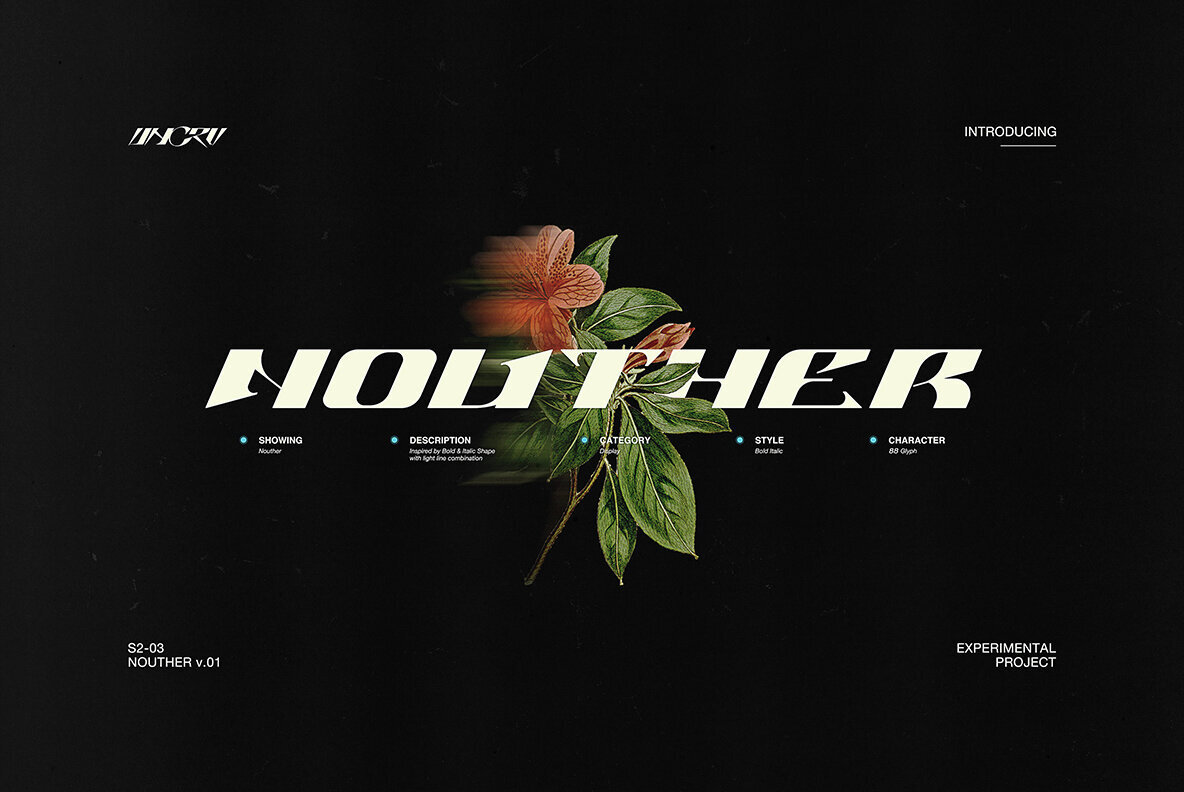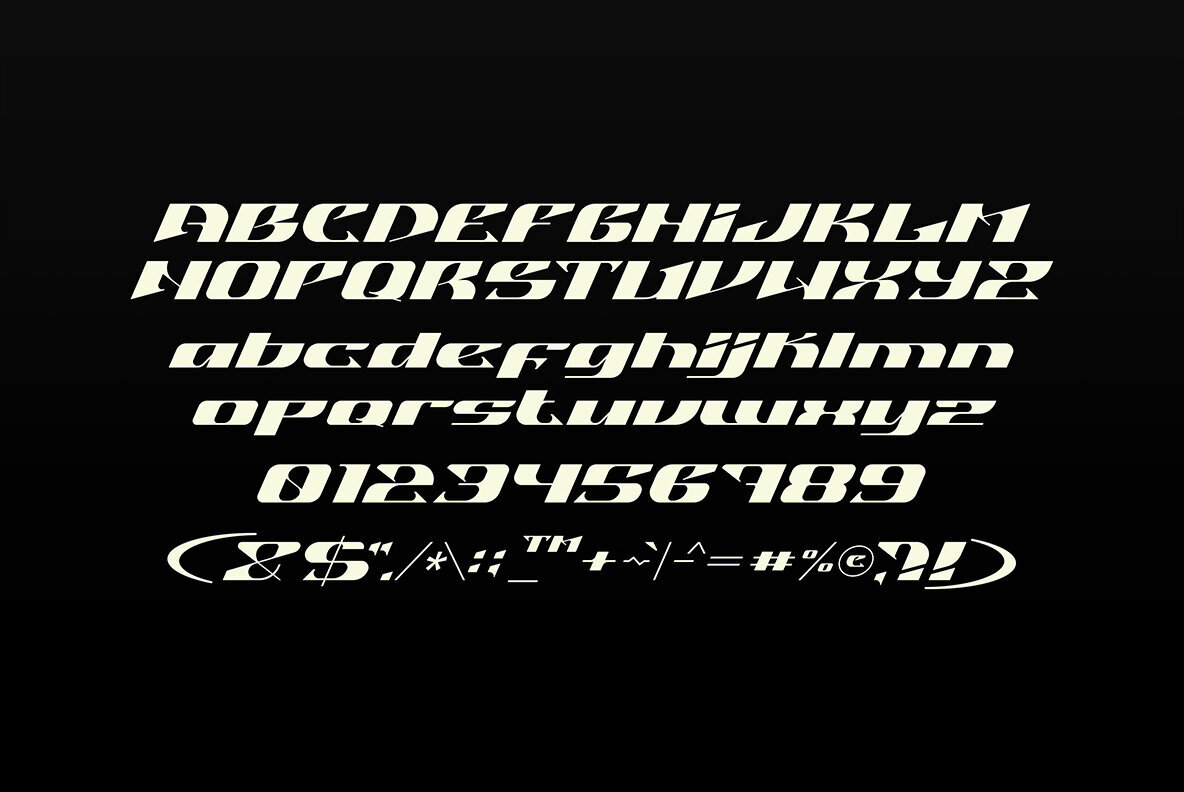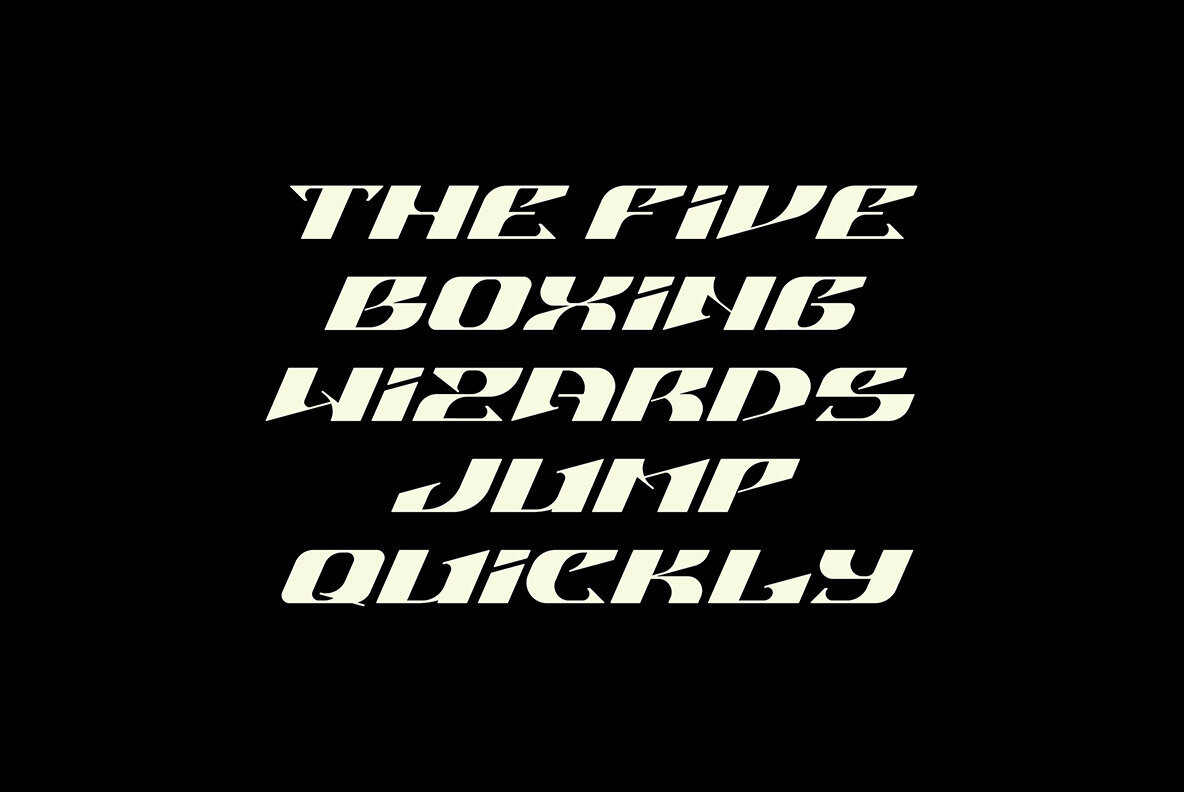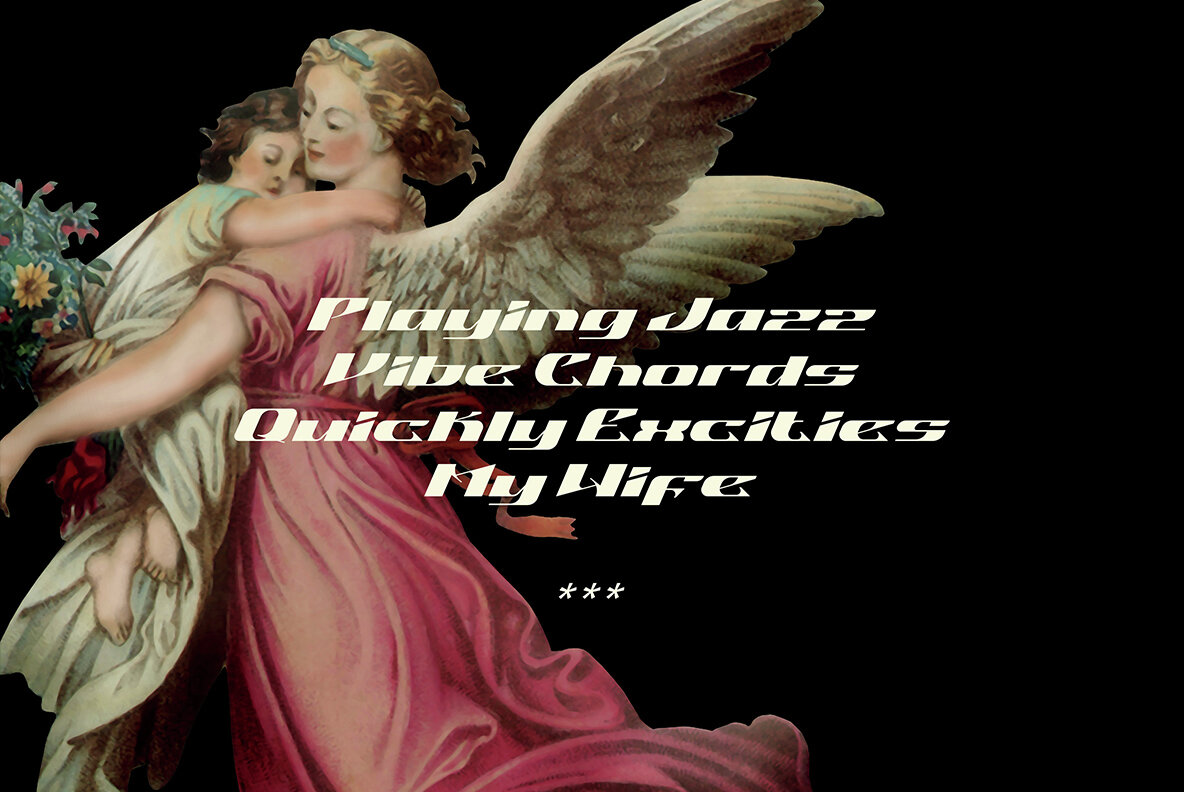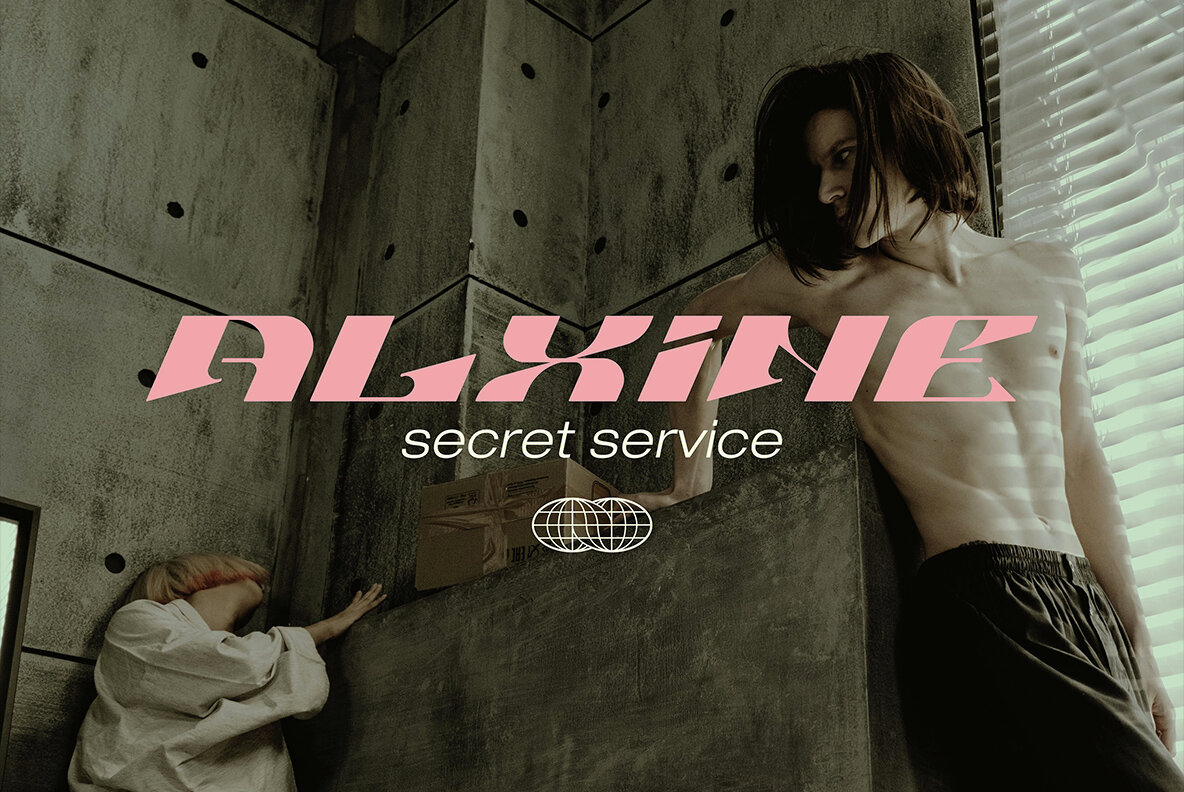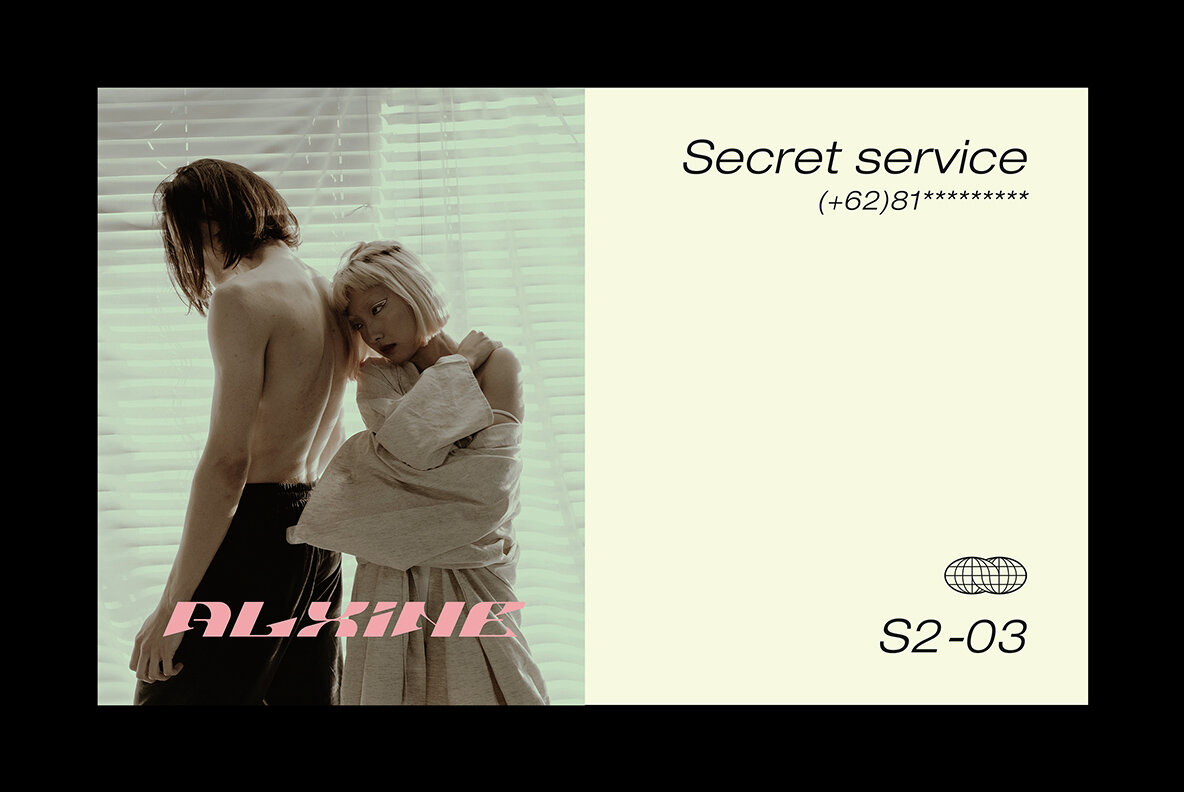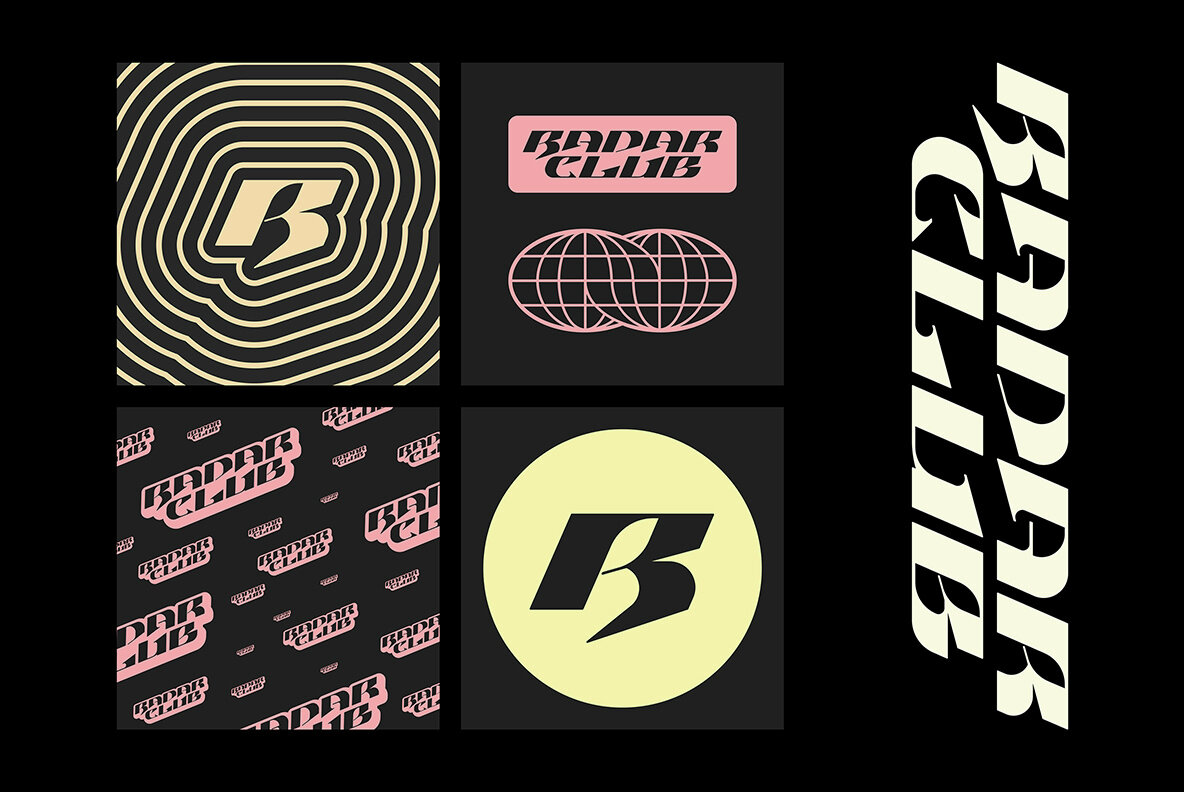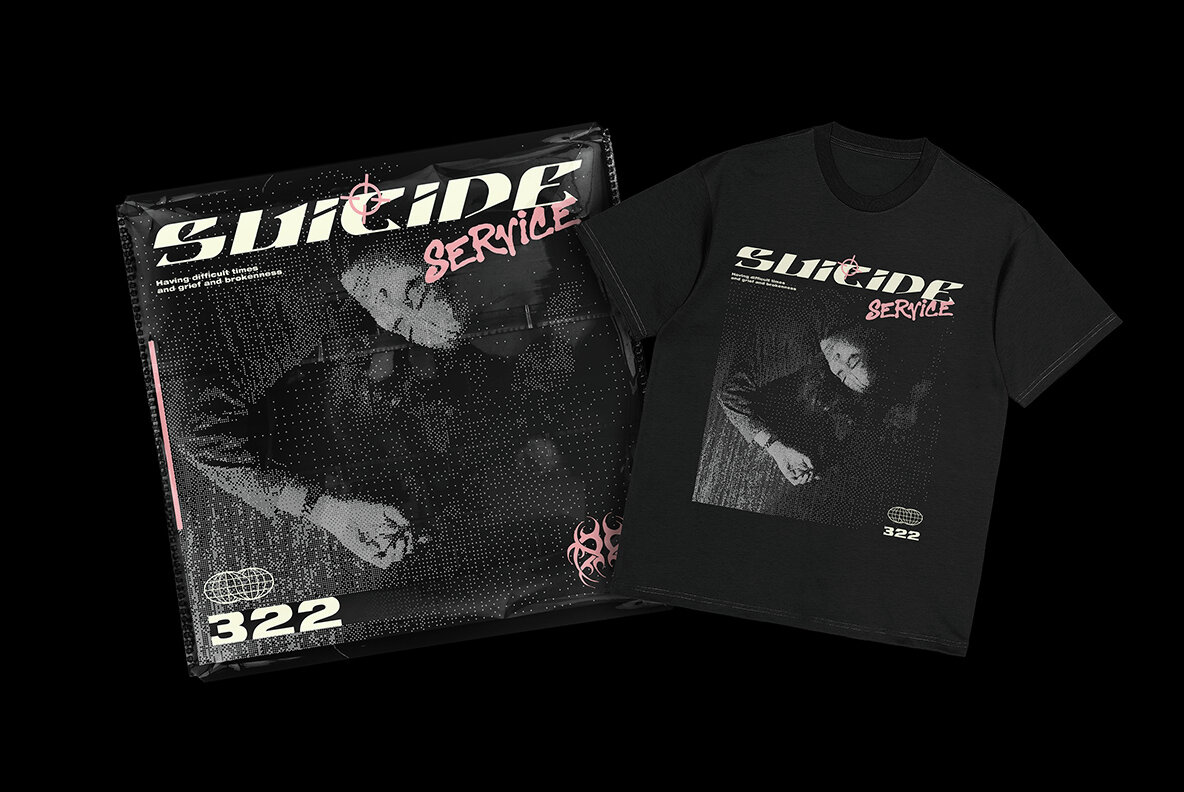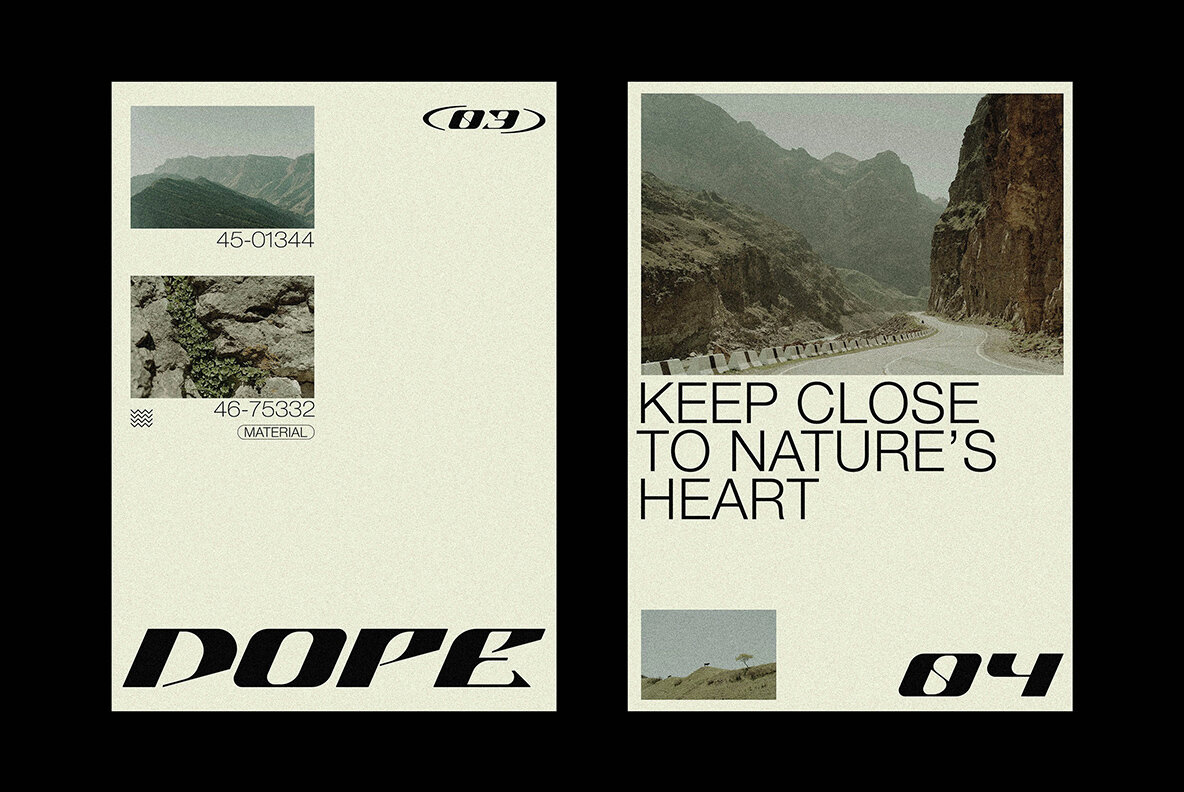
Nouther Font
NOUTHER
Nouther offers a compelling blend of modern boldness infused with a futuristic italic flair. This typeface balances simplicity with unique geometric shapes, making it ideal for projects that demand a contemporary edge.Nouther: Bold Futuristic Typeface
Applications for Nouther